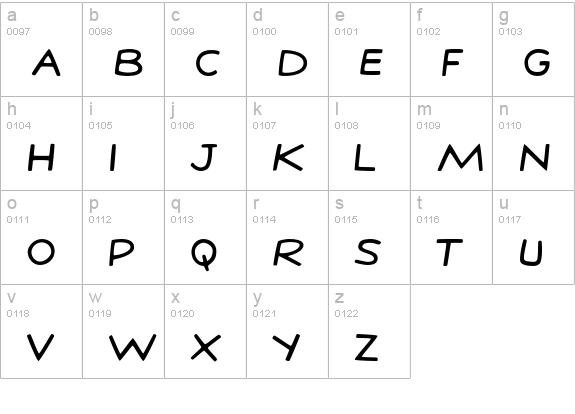
StanLee-Regular Font Details
StanLee-Regular is the standard, neutral variant in the StanLee typeface family \xE2\x80\x94 well suited to general body text, paragraphs, and standard typographic work.
Introducing StanLee-Regular, a captivating and versatile font that brings a touch of sophistication to any design project. With its sleek and modern letterforms, this font exudes a timeless elegance that is perfect for both print and digital applications. StanLee-Regular is a true homage to the legendary comic book creator, Stan Lee, known for his iconic characters and imaginative storytelling. Just like the incredible worlds he brought to life, this font captures the essence of creativity and adventure. This font is not only visually stunning, but it also offers a range of weights and styles, giving you the flexibility to create a variety of designs. Whether you're designing a logo, branding materials, or a poster, StanLee-Regular will effortlessly elevate your work to the next level. What's even better is that StanLee-Regular is freely available to download at FontsMarket.com. This means that you can bring this exceptional font into your design arsenal without any cost. Its accessibility ensures that everyone can enjoy and benefit from the beauty and versatility of StanLee-Regular. So why wait? Take advantage of this incredible opportunity to enhance your designs with StanLee-Regular. Download it today from FontsMarket.com and let your creativity soar to new heights.